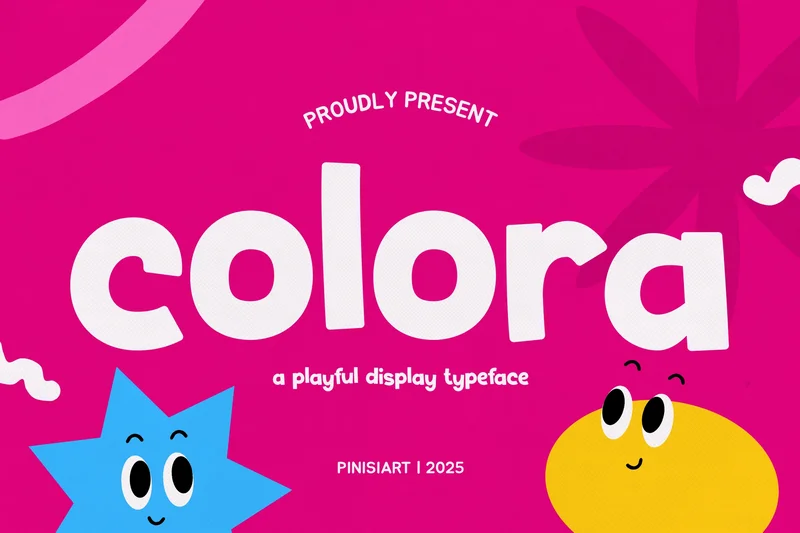
Colora – Playful Kids Fonts
Colora is a playful rounded display typeface designed with bouncy baselines, soft curves, and bold proportions that radiate joy. Its cheerful vibe makes it perfect for children’s brands, educational posters, and friendly digital apps, while the geometric yet quirky letterforms add an expressive, youthful energy. With its colorful personality, Colora helps every message feel brighter, warmer, and full of character.
Whether you’re designing a kids’ book cover, playful logo, social media poster, or daycare branding, Colora delivers a child-friendly tone that instantly grabs attention. Its bold and rounded letters set the stage for joyful storytelling, friendly communication, and vibrant campaigns. Designers and educators can rely on Colora to make words feel approachable, fun, and full of life.
Key Features :
Playful Vibe – Rounded, bubbly letters with a joyful tone
Kid-Friendly Structure – Soft curves and balanced proportions for easy readability
Versatile Design – Ideal for branding, packaging, posters, kids’ books, and school projects
Attention-Grabbing – Bold strokes that shine in headlines, billboards, and signage
Emotional Appeal – Creates warmth, friendliness, and fun across multiple platforms